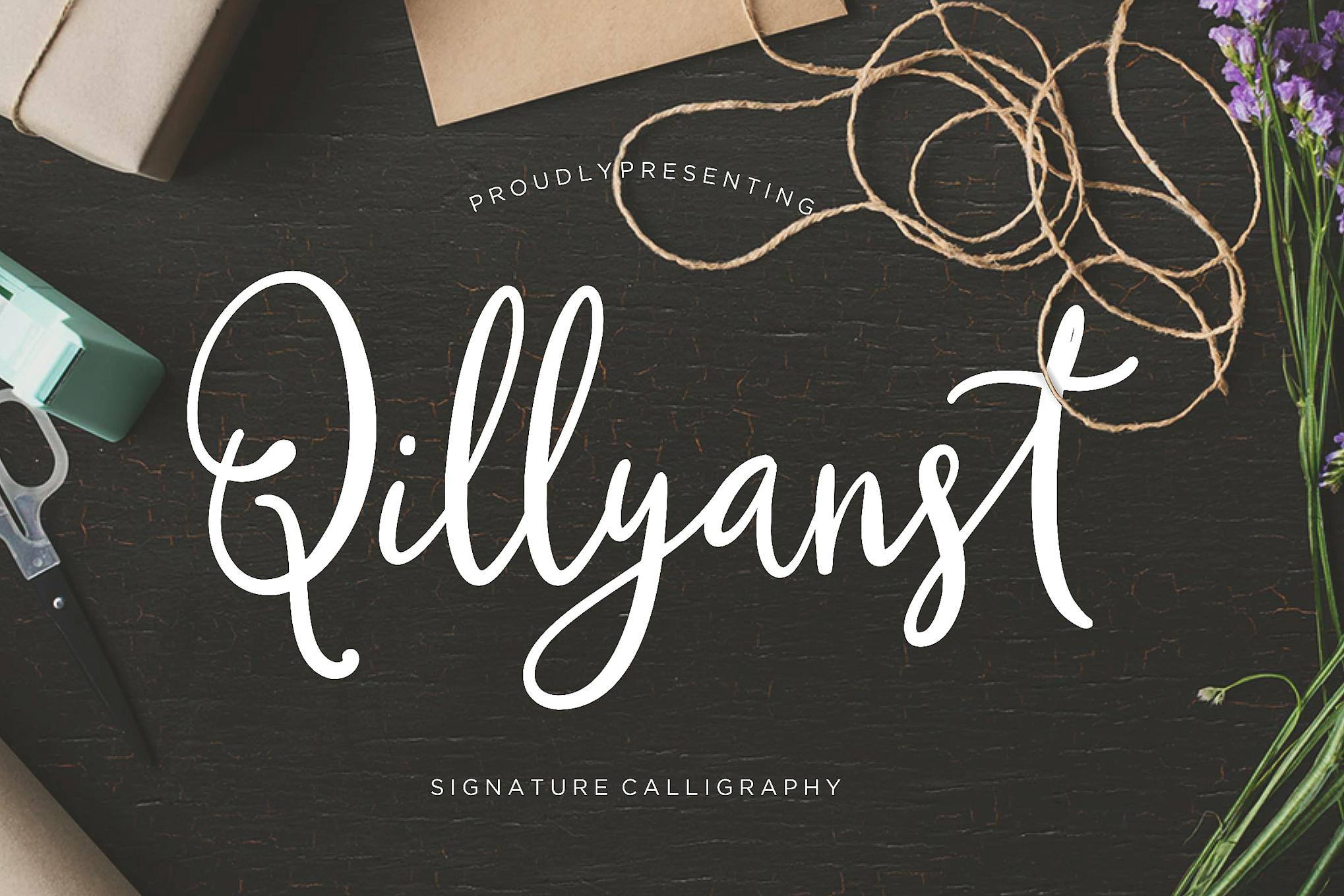
Qillyanst Signature Wedding Font
The Qillyanst Signature Wedding Font excels in unique design applications including distinctive wedding invitations, original bridal branding, creative ceremony logos, innovative product packaging, distinctive business cards, creative portfolios, unique greeting cards, original social media graphics, creative event signage, and innovative marketing materials. Its distinctive script style makes it perfect for projects requiring creative elegance that communicates originality and establishes unique brand positioning with audiences seeking distinctive wedding experiences and creative sophistication.
What makes the Qillyanst Signature Wedding Font genuinely exciting is its exceptional ability to capture the creative uniqueness and distinctive beauty of original weddings through innovatively crafted letterforms. The font features flowing, distinctive strokes with creative flourishes and unique proportions that create a distinctly original appearance. Each character displays remarkable attention to creative detail with innovative curves, distinctive connections, and unique spacing that give text a beautifully creative, hand-lettered quality. The font's distinctive character and creative rhythm create an atmosphere of original elegance while maintaining creative sophistication and wedding authenticity.
The Qillyanst Signature Wedding Font family typically includes regular weight with extensive character coverage, featuring uppercase and lowercase letters, numerals, punctuation marks, and international characters. The typeface often incorporates stylistic alternates, contextual ligatures, and creative swashes that enhance its signature uniqueness. These additional elements provide designers with creative flexibility to customize text appearance and achieve more natural-looking distinctive handwriting that reflects the font's creative and original character.
This creative signature font distinguishes itself through its remarkable balance of distinctive charm and sophisticated elegance. Unlike common or ordinary fonts that lack creative appeal, Qillyanst Signature Wedding Font embraces the power of innovative design to create unique connections with creative wedding audiences. The font's distinctive character makes it essential for creative wedding planners, original brands, and innovative celebration businesses where creating unique wedding experiences and creative memories is fundamental to success in distinctive wedding markets.